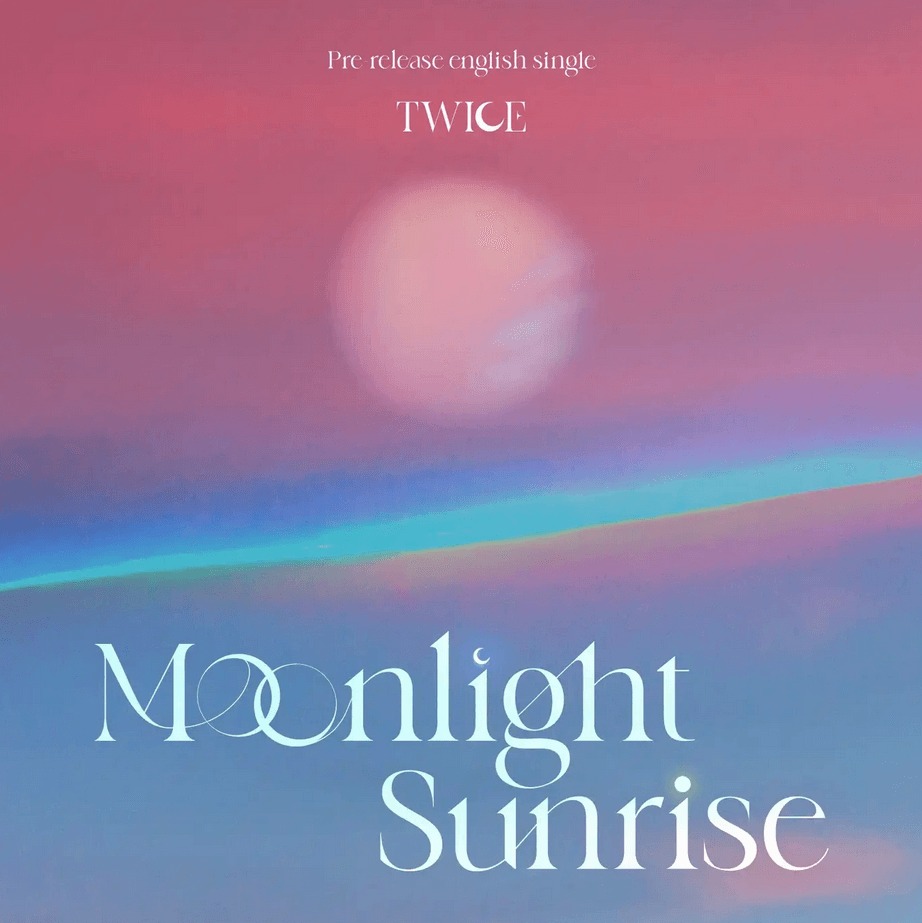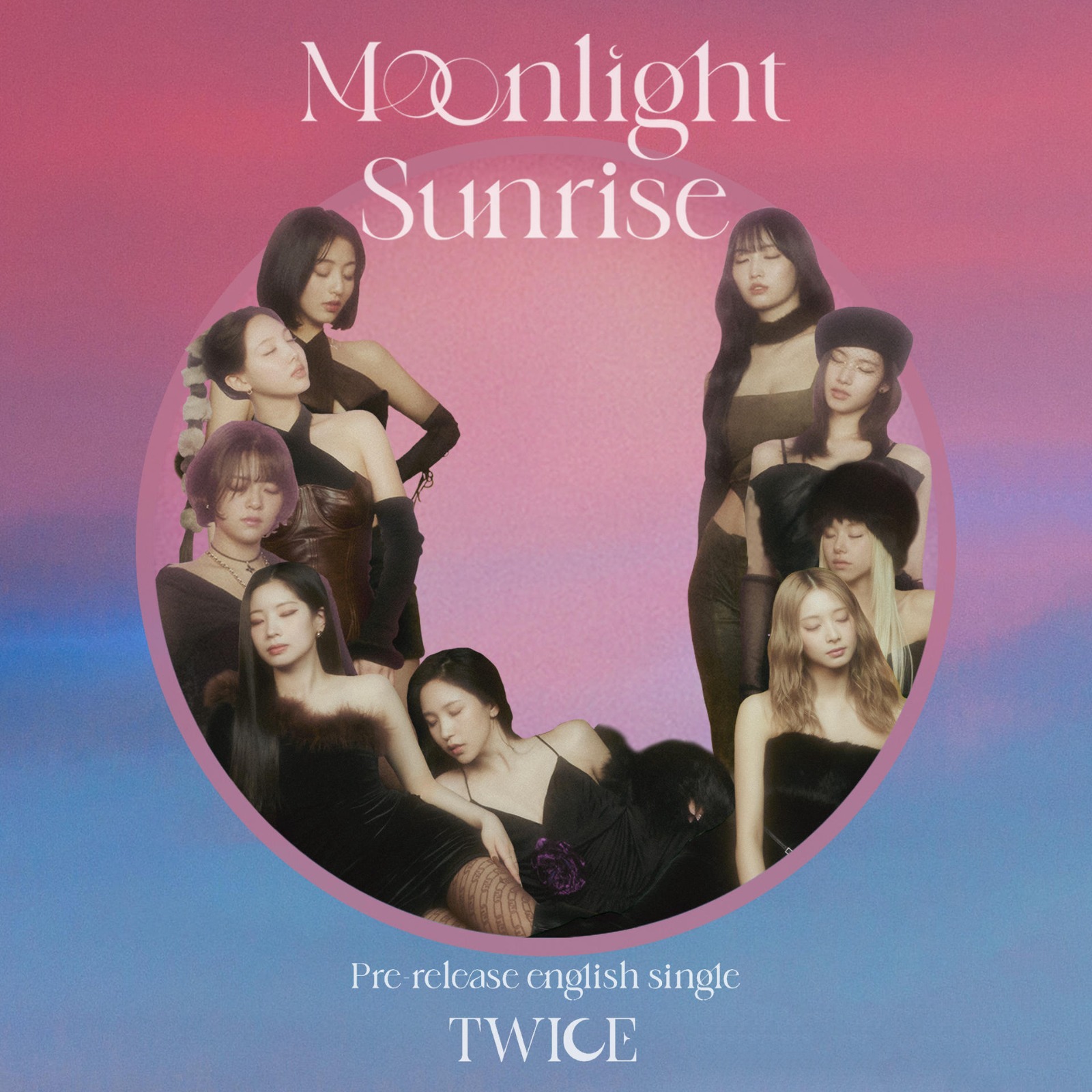
Moonlight Sunrise Font
Angle Typeface in Use
“Moonlight Sunrise” is an English-language single recorded by the popular K-pop group Twice. It was released on January 20, 2023, through JYP Entertainment and Republic Records. The song’s digital artwork captures attention with its chic and sophisticated design, featuring Angle, a display font that adds elegance to the visual presentation. Designed by Zamroni Hamzah and published by Sensatype Studio, the Angle font’s refined lines and graceful aesthetic perfectly complement the song’s romantic and modern vibe.
Angle Font, Perfect for a Range of Applications
Branding
Choosing the suitable typeface can make a substantial difference in a world where brand identity is essential. Angle, a chic and elegant display font, allows brands to create refined visual identities that resonate with high-end appeal. From logo designs to packaging, Angle elevates branding materials with a distinct sophistication, appealing to consumers drawn to luxury and elegance.
Titles
A captivating title is crucial for grabbing an audience’s attention, especially in creative industries like media and fashion. The Angle font’s unique style makes it a perfect choice for magazine covers, website headers, and advertising titles. It attracts attention and conveys a sense of exclusivity and class. With Angle, designers can craft titles that reflect the elegance and sophistication of the content they introduce.
Posters and Banners
Visuals must communicate sophistication for events or campaigns aimed at luxury and style—such as fashion shows, art exhibitions, or upscale product launches. The Angle display font excels in such settings, providing a dramatic yet refined touch to posters and banners. Its delicate curves and distinctive style make it ideal for creating visuals that convey excitement and elegance.
Digital Media
In today’s digital landscape, powerful typography is essential for capturing attention online. Angle integrates seamlessly into digital platforms, enhancing websites, social media graphics, and video content. This font’s adaptability ensures a cohesive and refined brand presence across various digital channels, reinforcing a brand’s identity and connecting with an audience seeking style and sophistication.
Enhance Your Creative Projects
Angle is not just a typeface but an invitation to explore creativity and elegance. It enables designers to experiment with various styles, applications, and color schemes, achieving an elevated level of artistic expression. Whether you’re an experienced graphic designer, a branding specialist, or a creative hobbyist, Angle provides function and inspiration. Its chic aesthetic encourages bold, refined approaches to typography, helping creators establish distinct visual narratives.
Why Choose Angle Display Font?
• Sophisticated Design: Angle’s elegant, contemporary look sets your projects apart by adding a refined edge. Its design is eye-catching and meticulously crafted, making it ideal for conveying messages with clarity and class.
• Versatility: Although it shines in luxury-themed projects, Angle’s versatility suits various industries, from beauty brands to upscale hospitality. Its adaptability ensures it elegantly meets diverse design needs.
• High Quality: We’re dedicated to providing premium fonts that meet modern design standards. With Angle, you can expect sharp, polished typography across all mediums, ensuring your designs always look their best.
Get Your Angle Display Font Today!
Angle is available for immediate download for designers ready to elevate their projects. Visit Sensatype.com to explore this elegant font and discover our complete collection of design resources. You can create visuals that capture attention and radiate sophistication with a simple download.
In conclusion, whether your goal is to evoke a sense of luxury or to keep a polished and modern look, Angle is an exemplary choice for your design projects. Its chic presence is ideally suited for any endeavor requiring a striking yet refined touch, allowing you to communicate ideas with elegance and impact. Embrace the beauty and innovation of Angle and elevate your creative work with a font that brings timeless style to the forefront.